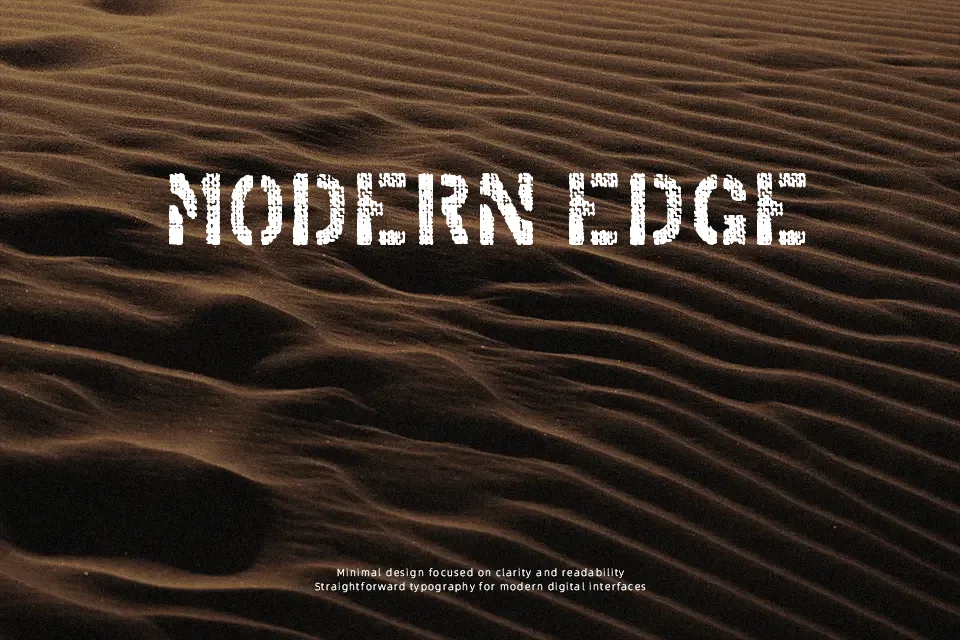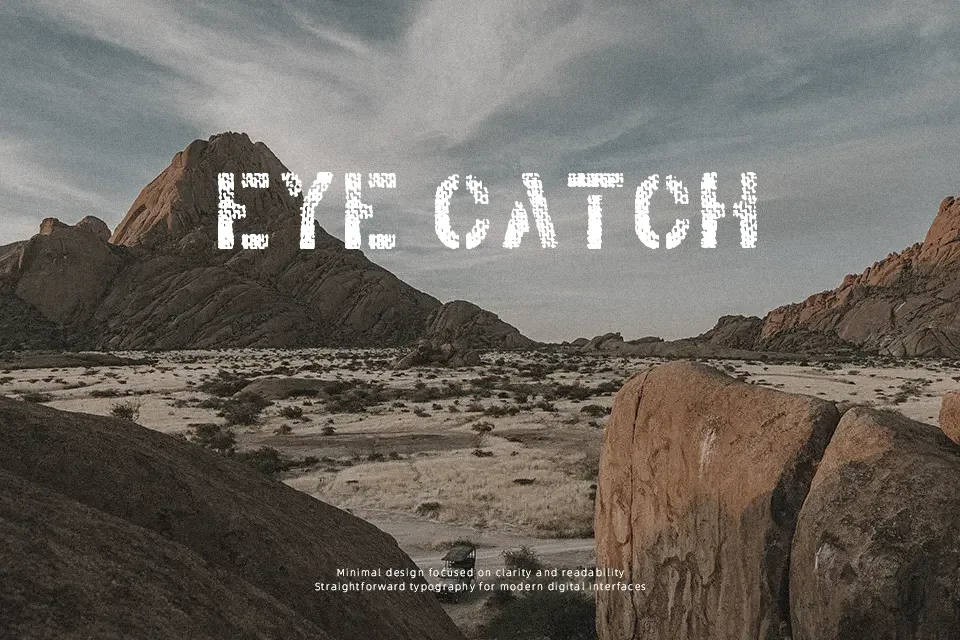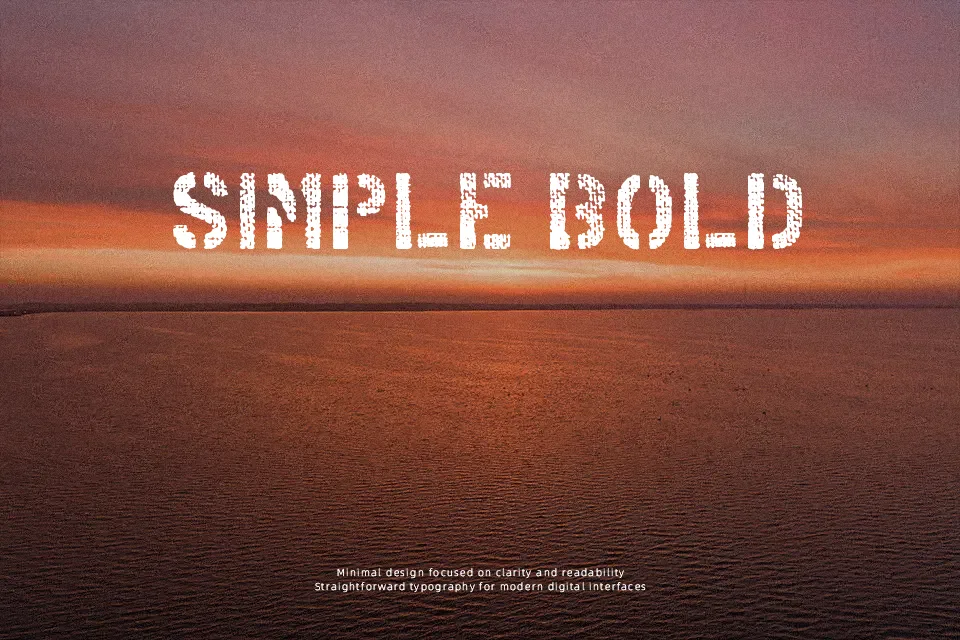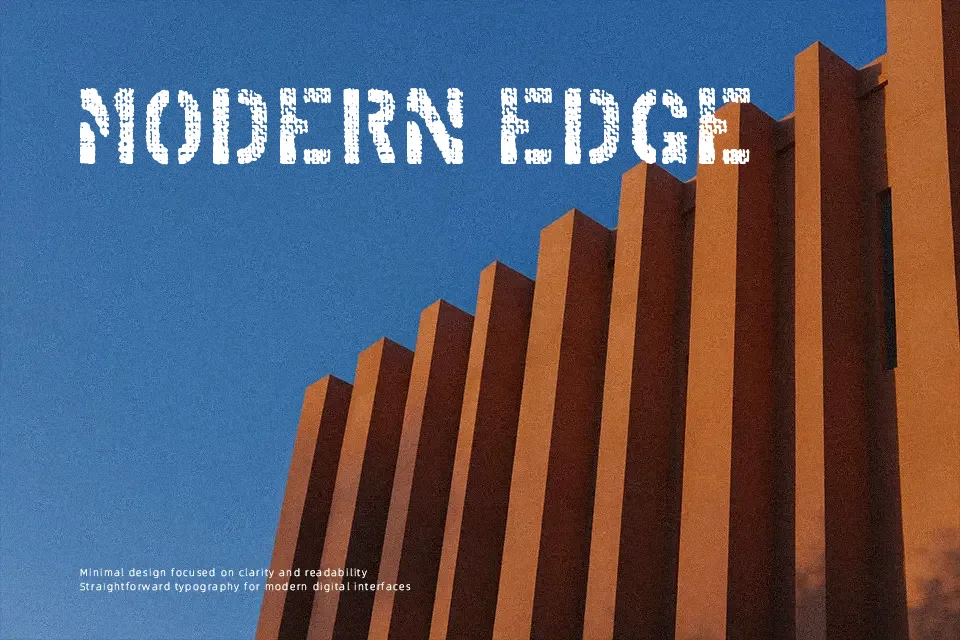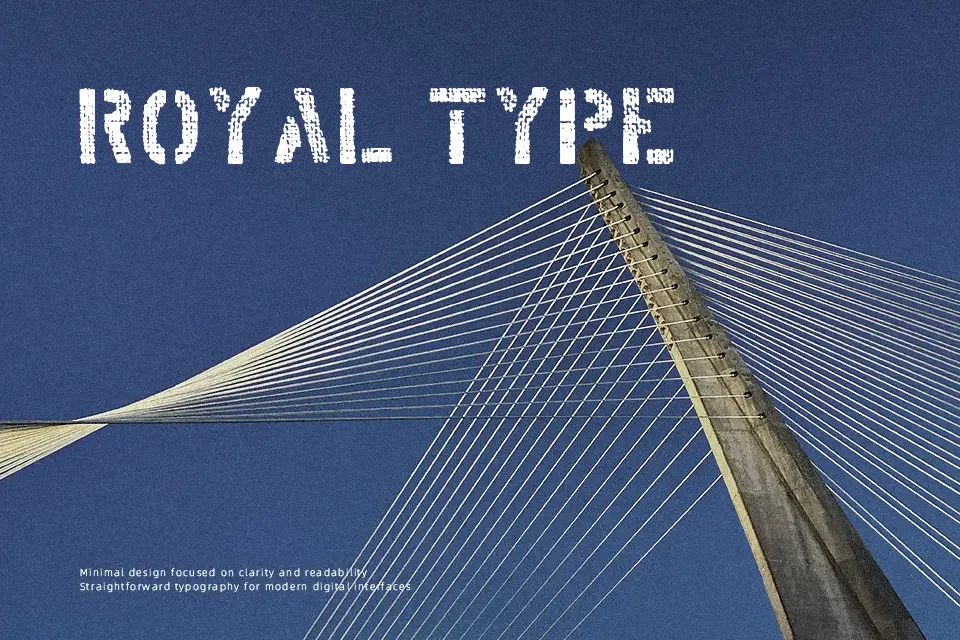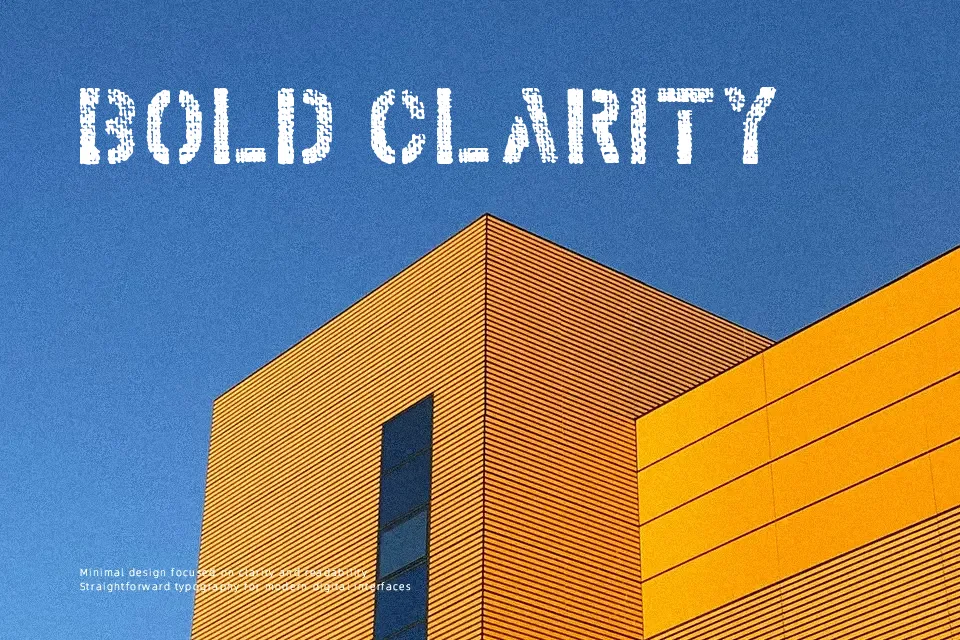
Arabica Export Font
Designed by imagex
Heavy block strokes cut through with stencil gaps give Arabica Export a raw, utilitarian look that reads somewhere between military surplus and urban street culture. The uppercase-only structure keeps letter rhythm tight, which works well on short-burst titles and bold headers. It has real traction in video game UI overlays, action poster headlines, and crate or packaging mockups where a worn, industrial aesthetic matters. That stencil design is also its ceiling—the cutouts that create its character make it a poor choice for anything requiring fine detail at small sizes or continuous reading. No lowercase support limits its flexibility heavily, so pairing it with a neutral sans for body copy is almost mandatory.
Best For:- Action movie or gaming event poster headers
– Street culture and urban brand identity
– Adventure or military-themed packaging labels
– Video game title screens or HUD typography
Not Ideal For:- Body text or any extended paragraph reading
– Corporate or formal brand materials
– Small-size applications where stroke gaps collapse
– Mixed-case typesetting (no lowercase characters)
Perfect for advertising, gaming, and logo, with a bold and display style.